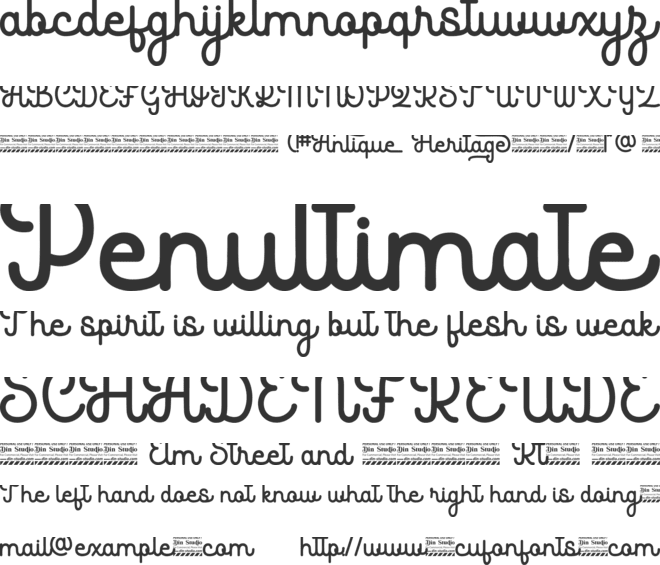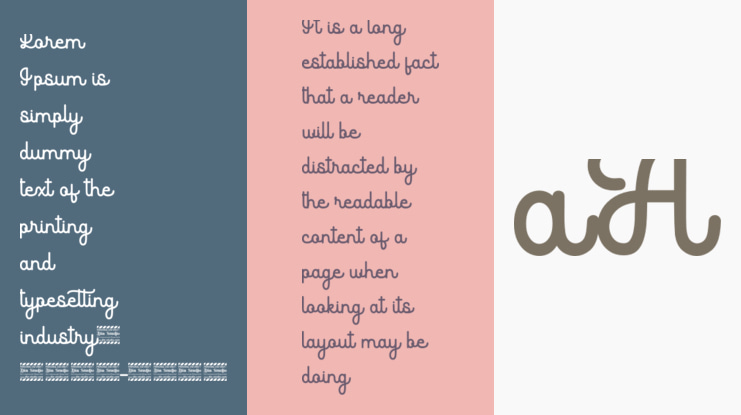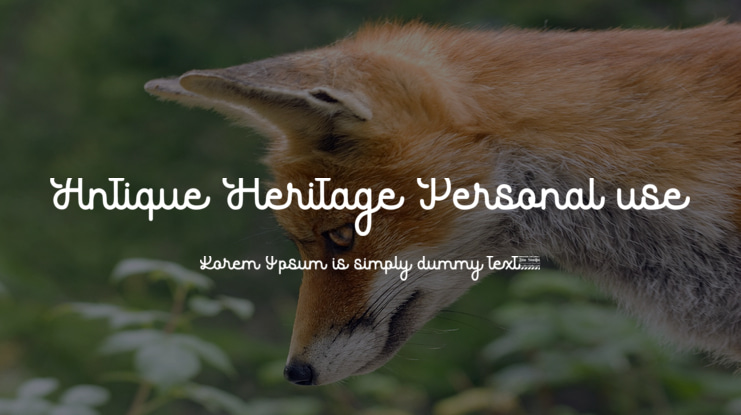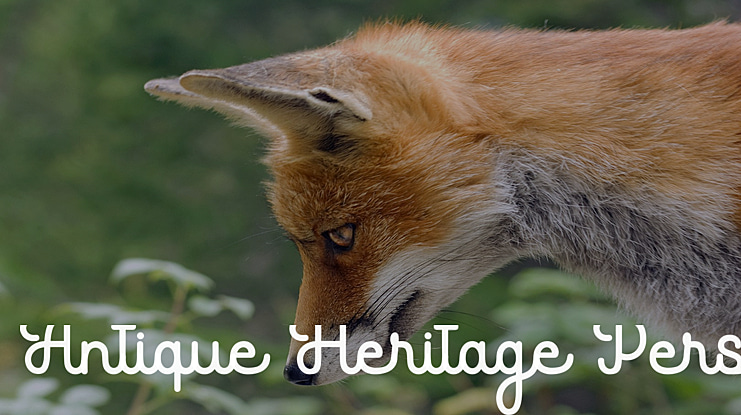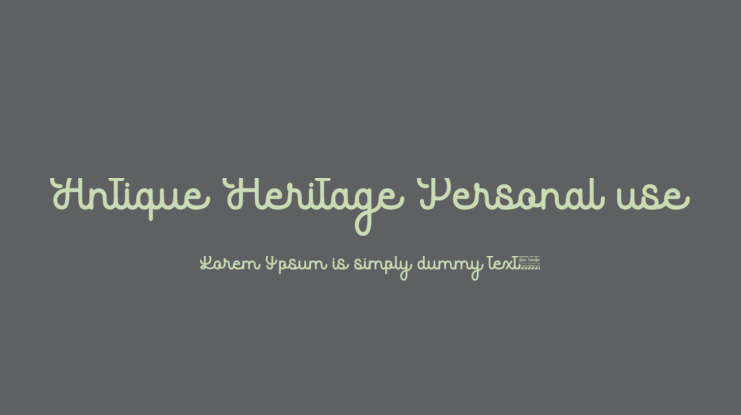
Introducing Antique Heritage– A Monoline Script Font
This font is best to add antiques to your projects that have vintage styles and shapes can help bring to a fine new level. Also, to increase a real sense of timelessness. Use it for headings, logos, business cards, printed quotes, invitations of all sorts, cards, packaging, and your website or social media branding.